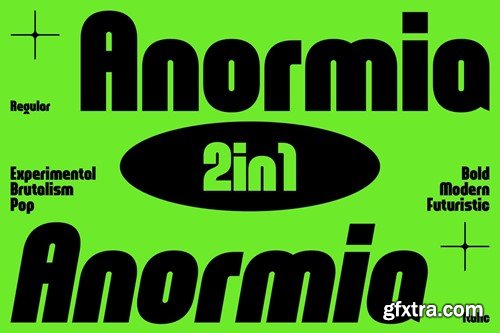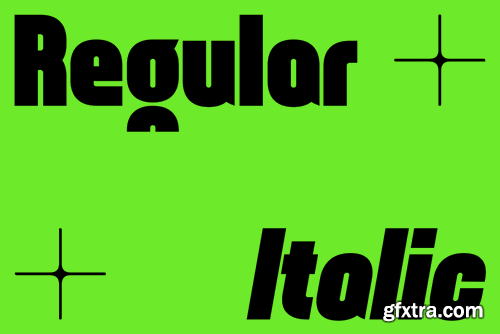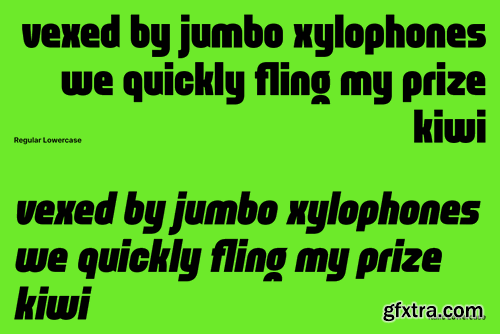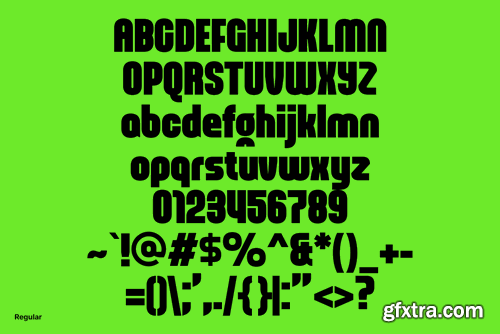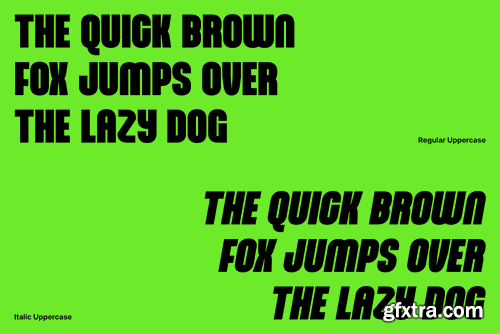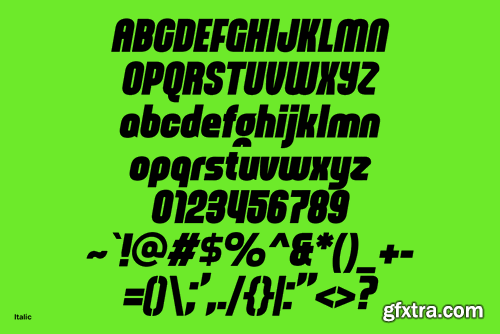
Dive into the bold, the vibrant, and the undeniably modern with Anormia – the ultimate urban pop font that commands attention and sets trends. Inspired by contemporary visual poster aesthetics and graphic design trends, Anormia combines the raw edge of urban pop brutalism with sleek modernity. Its striking, bold presence is designed to make a statement, whether it’s on posters, logos, or the latest fashion piece. Choose Your Vibe: Regular or Italic. Regular: Perfect for making powerful, unyielding statements with a sharp, clean look. Italic: Adds a dynamic, forward-leaning flair that brings energy and movement to any design. Anormia is ideal for: So why wait? Give your designs the bold, modern touch they deserve with Anormia. It’s the font that’s ready to rock your world. What's Inside: